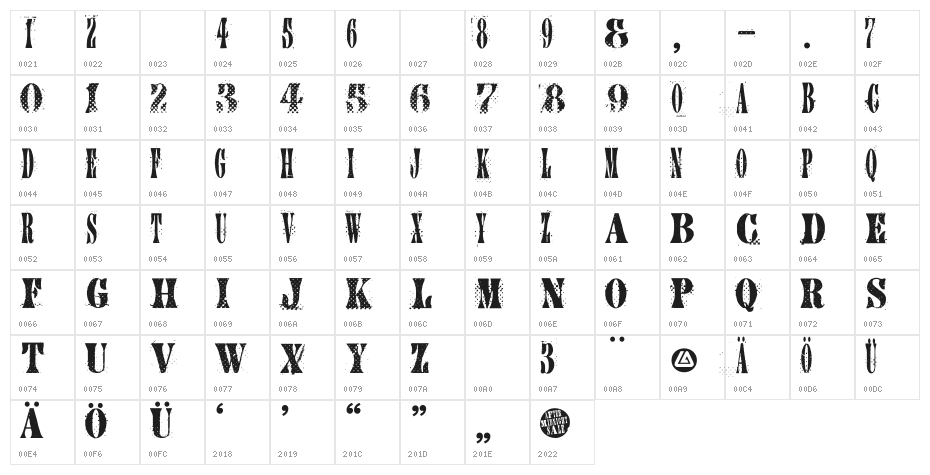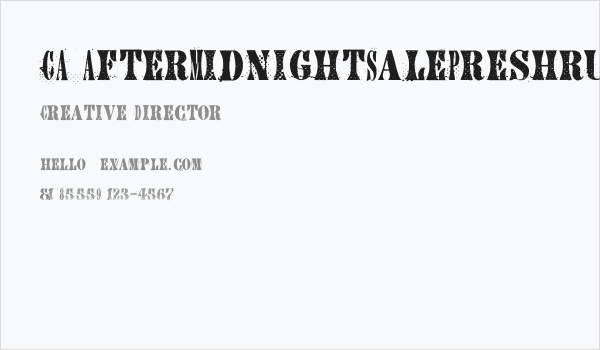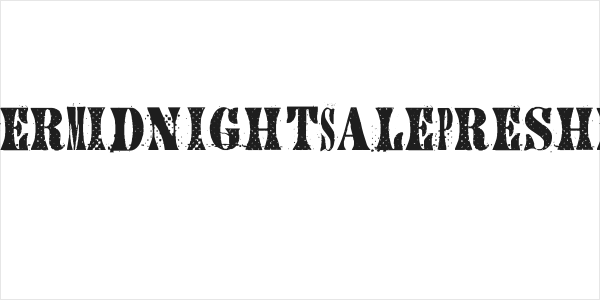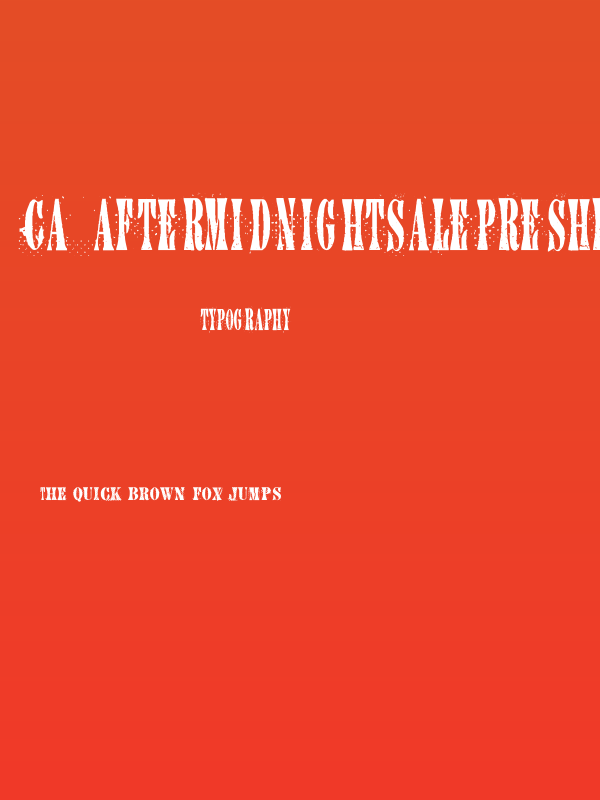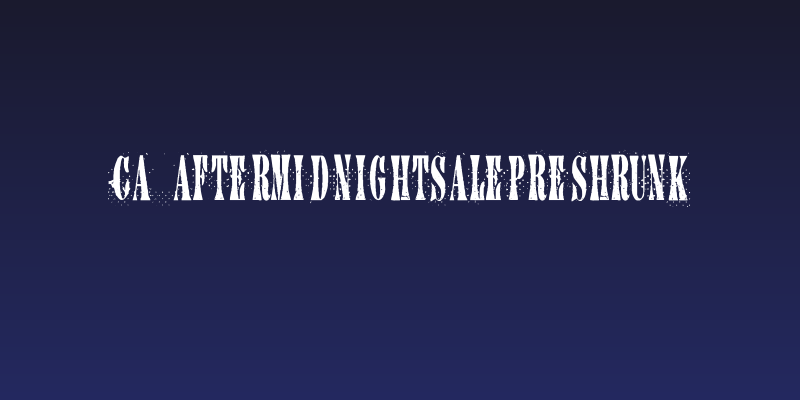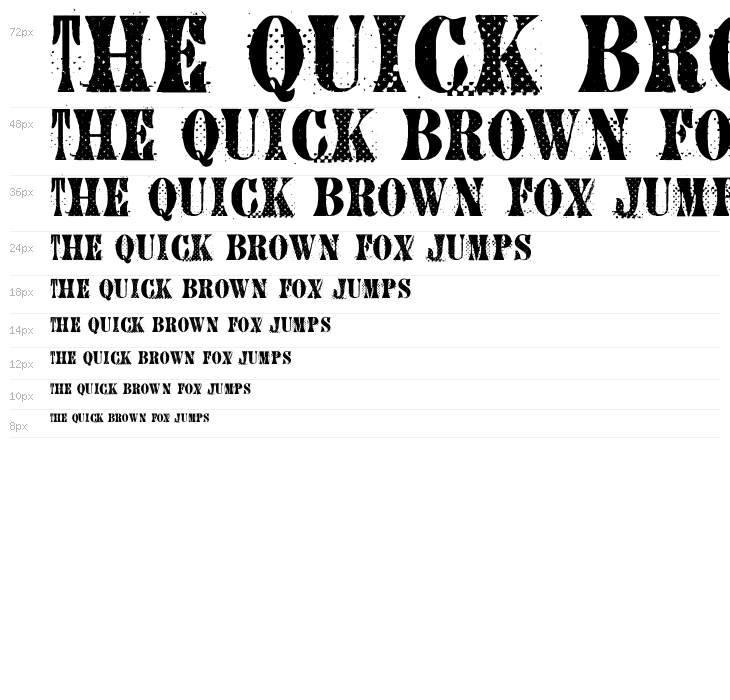
CA AfterMidnightSalePreshrunk Font
CA AfterMidnightSalePreshrunk Description
This font features a bold and dramatic style with a distressed texture that gives it a vintage and rugged appearance. The uppercase letters are tall and narrow, with sharp serifs that add to the boldness of the design. The lowercase letters maintain the same distressed look, ensuring consistency throughout the typeface. Numbers and special characters are also included, each carrying the same textured effect, making them stand out. The overall design is reminiscent of old-fashioned posters or signage, making it ideal for projects that require a touch of nostalgia or a bold statement.
| Proposed Projects | Ideal for vintage-themed posters, signage, branding, and any project requiring a bold, nostalgic touch. |